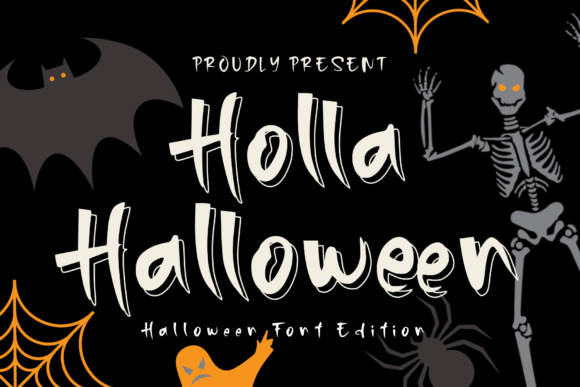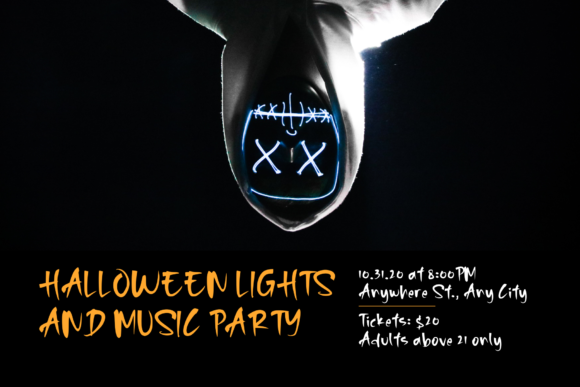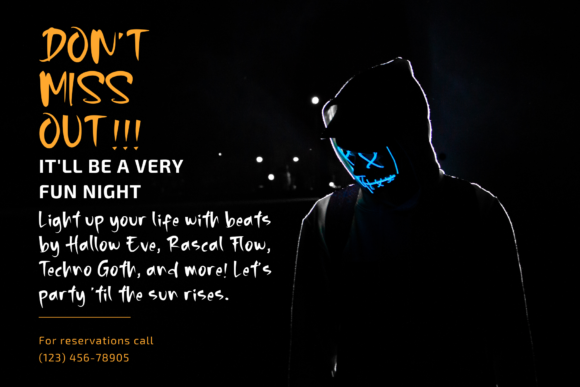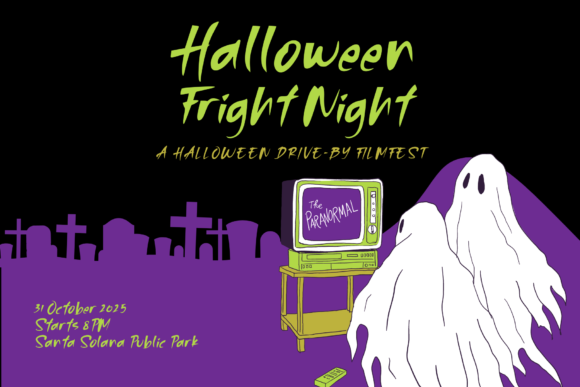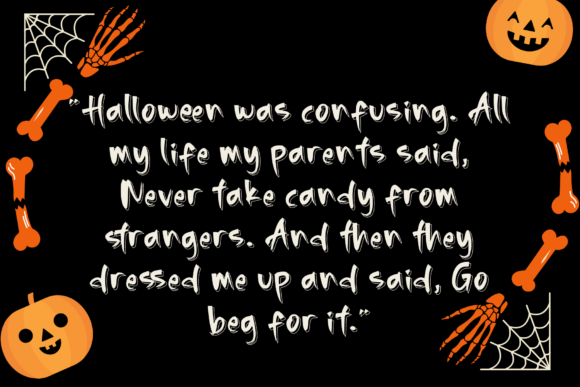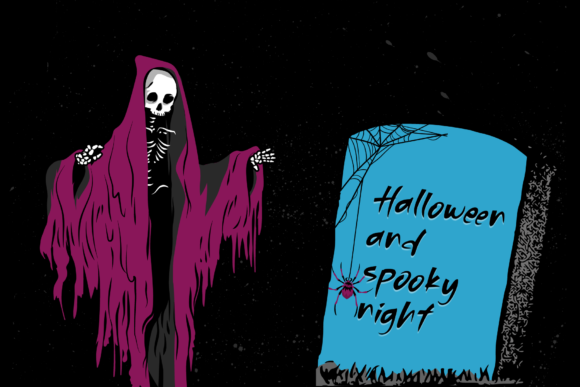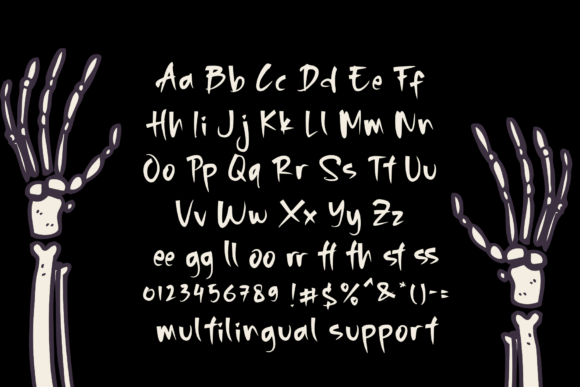
The Spooky Season Just Got a Whole Lot Cooler
As the sun sets on another summer, designers and creatives alike can’t help but feel a thrill of excitement as the Halloween season approaches. It’s the one time of year where we can let our hair down, unleash our inner child, and get creative with all things spooky and kooky. For those of us who live for this kind of magic, the right font can make all the difference.
Enter Holla Halloween Font, a cool, quirky, and friendly display font that’s guaranteed to add a dash of personality to your designs. This versatile font is perfect for everything from invitations and social media graphics to party decorations and Halloween-themed merchandise. With its playful charm and eerie appeal, Holla Halloween Font is the perfect addition to any creative project.
Holla Halloween Font Key Features
- Unique Characteristics: Distinctive, hand-drawn style with bold lines and intricate details, perfect for adding a spooky touch to designs
Holla Halloween Font Review
Holla Halloween Font is a unique and playful font that’s perfect for adding some spooky charm to your designs. ✨ I love how it captures the essence of Halloween and the fall season, making it a great choice for seasonal branding, invitations, or advertisements.
The font’s bold and whimsical feel is sure to grab attention, and its varied letterforms add a touch of personality to any text. ✨ I appreciate how the font’s designer has taken the time to create a cohesive look that’s consistent throughout.
- ⚠️ Limited flexibility: The font’s bold and playful feel may not be suitable for all design projects, particularly those that require a more serious or elegant tone.
- ⚠️ Limited character set: The font’s character set is limited, which may make it difficult to use in certain languages or for projects that require a wide range of characters.
- ⚠️ Limited webfont support: Some users may experience difficulties with webfont support, particularly in older browsers or on mobile devices.
Overall, I think Holla Halloween Font is a fun and creative choice for designers looking to add some Halloween spirit to their projects. While it may have some limitations, its unique charm and versatility make it a great addition to any design toolbox.
Tips for Getting the Most Out of Holla Halloween Font
Use the Holla Halloween Font to add a spooky touch to your Halloween-themed designs.
Combine the font with other Halloween-themed elements, such as jack-o-lanterns and ghosts, to create a cohesive design.
Common Use Cases for Holla Halloween Font
Holla Halloween Font is perfect for creating Halloween-themed designs, such as invitations, posters, and social media graphics.
Use the font to add a spooky touch to your